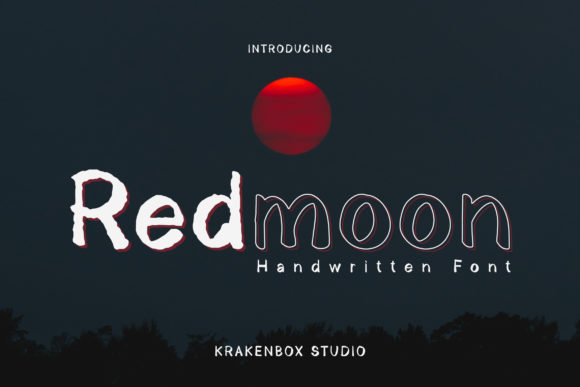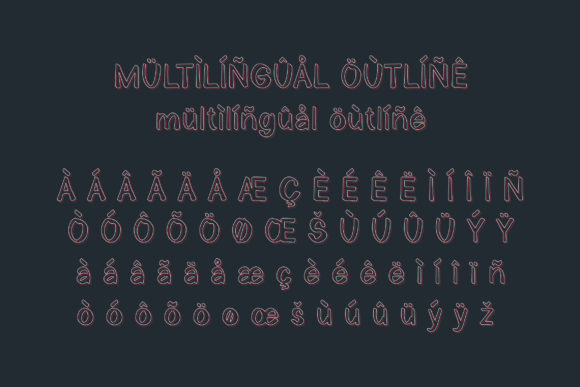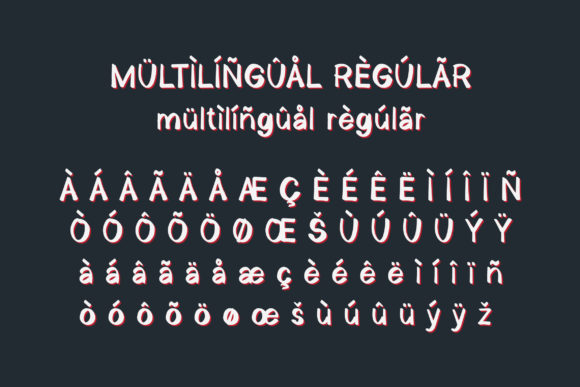
About Redmoon Font
Redmoon is a cute and natural handwritten font. Whether you’re looking for fonts for Instagram or calligraphy scripts for DIY projects, this font will turn any creative idea into a true piece of art!